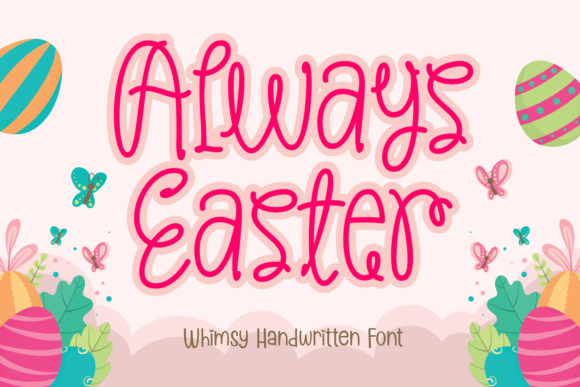
**Always Easter: The Font of Enduring Charm and Joy**
In a world where monotony reigns supreme, let your designs exude a captivating charm with Always Easter, a font crafted with meticulous care to infuse your creations with a touch of whimsy and boundless cheer. Immerse yourself in the enchanting world of Always Easter, a delightful script font that dances across your screen with its playful curves and effervescent energy.
**A Symphony of Delight for Your Designs**
With Always Easter as your creative companion, you'll bid farewell to design doldrums and embrace a realm of endless possibilities. Its irresistibly cute and whimsical style transforms ordinary words into captivating expressions, adding a dash of playfulness to your quotes and an aura of joy to your invitations. Let Always Easter be your font of choice for spreading happiness through your designs, whether it's a heartfelt message to a loved one, a captivating social media post, or an eye-catching marketing campaign.
**Unleash Your Creativity with Always Easter**
As a creative professional, you know the importance of fonts that resonate with your audience and leave a lasting impression. Always Easter does just that, captivating your readers with its unique personality and evoking emotions that transcend the boundaries of language. Its full of life style adds a layer of warmth and authenticity to your designs, making them more relatable and engaging. Let Always Easter be your secret weapon for creating designs that speak volumes, leaving your audience enchanted and eager for more.
**Embrace the Magic of Always Easter Today**
Don't let this opportunity to elevate your designs pass you by. Embrace the magic of Always Easter today and embark on a creative journey filled with delight and inspiration. Its versatility knows no bounds, extending from heartfelt quotes to whimsical invitations, from captivating social media posts to attention-grabbing marketing campaigns. Unleash your creativity and let Always Easter transform your designs into captivating masterpieces that leave an indelible mark on your audience.
**Immerse Yourself in a World of Creative Possibilities**
With Always Easter at your fingertips, you'll discover a world of endless creative possibilities. Picture a heartfelt quote, adorned with Always Easter's charming curves, gracing the walls of your living room, inspiring you daily with its message of joy. Imagine social media posts that pop with personality, captivating your followers with their playful charm. Envision marketing campaigns that break through the noise, leaving a lasting impression on your target audience. Always Easter is the key to unlocking your creative potential and crafting designs that captivate and inspire.